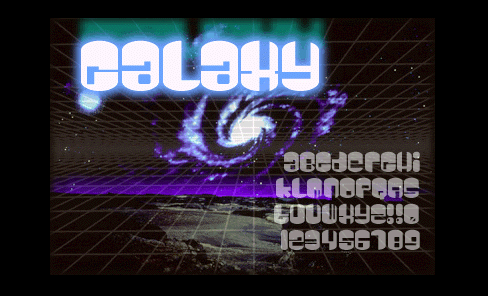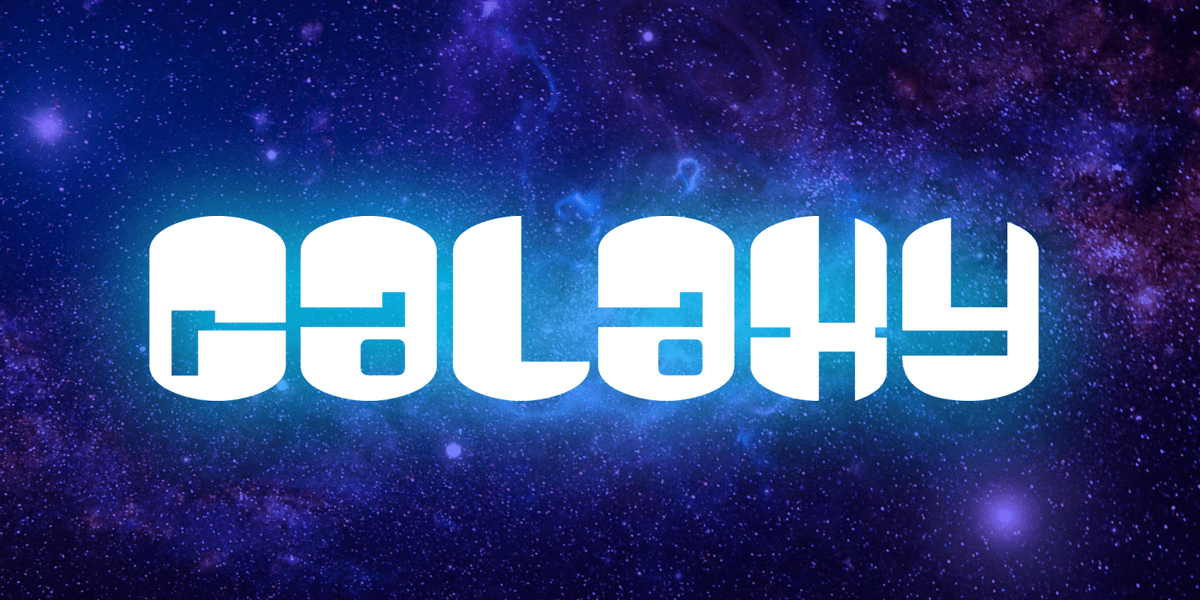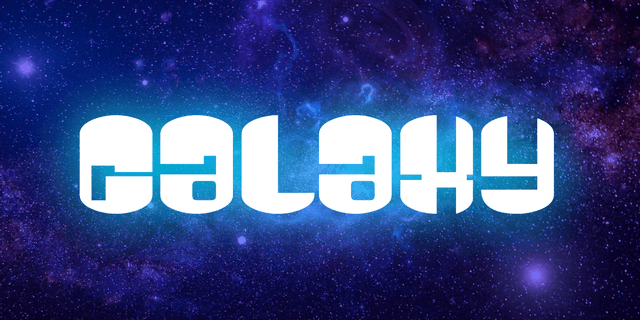
This is the first font I ever made entirely in Fontographer. No Photoshop or Illustrator here, folks. As you can see, its a spacey futuristic font. The capital letters with holes have stars in 'em. This is also my 30th font! Whooooo - hooooooo!!!! I think I might make a remix of this font in the near future.